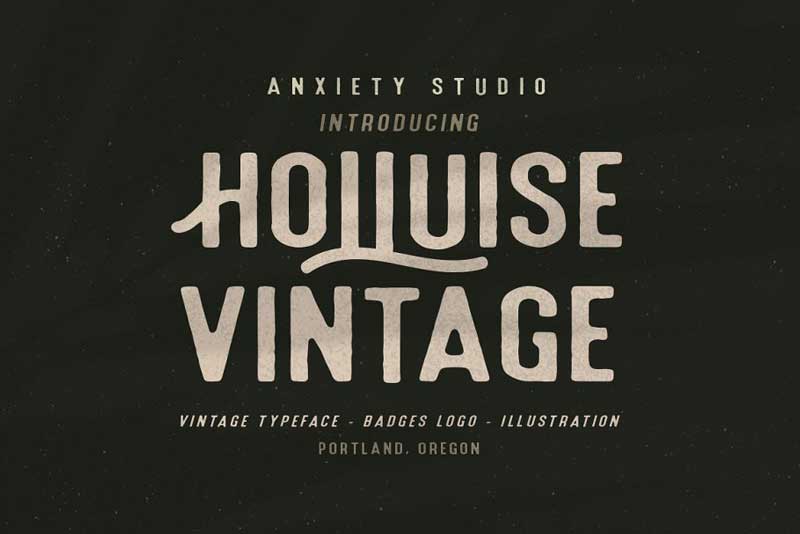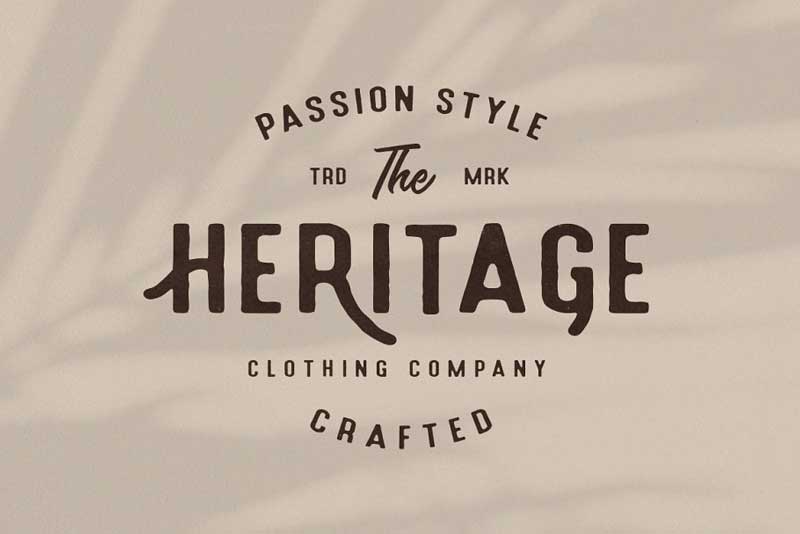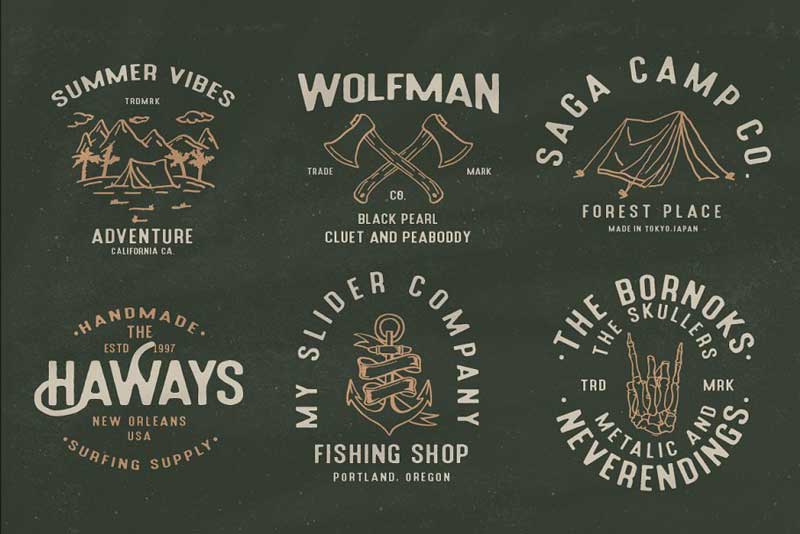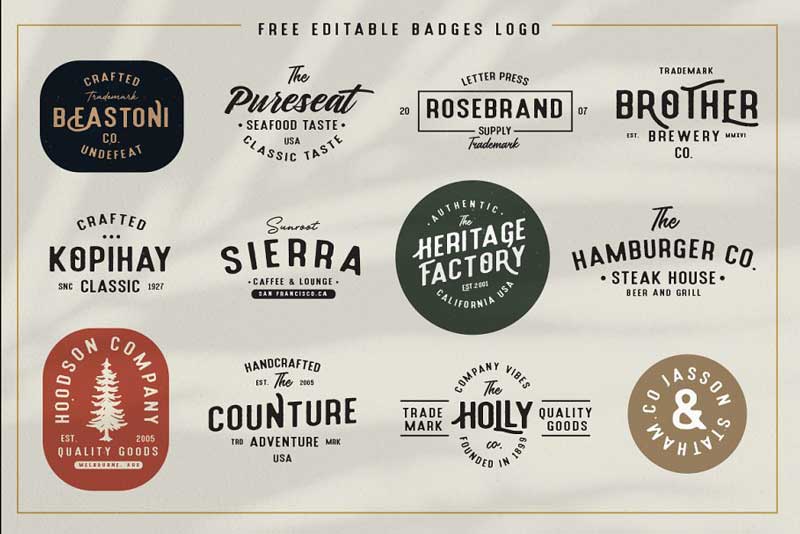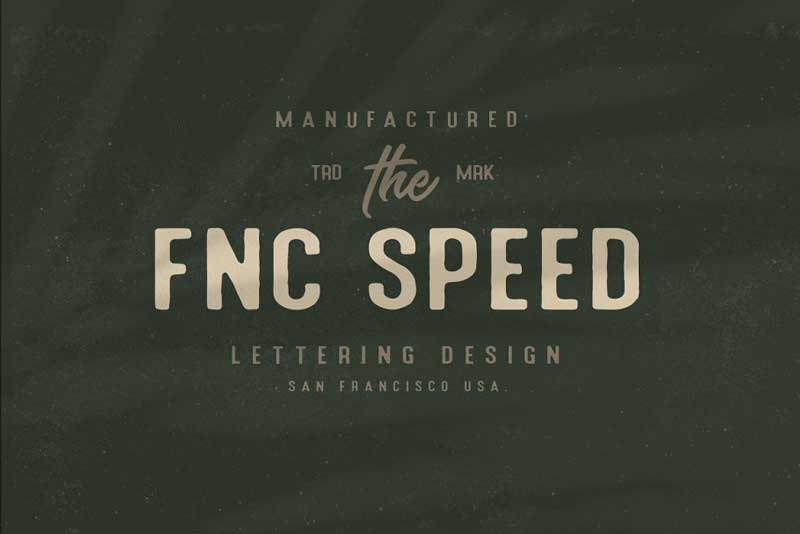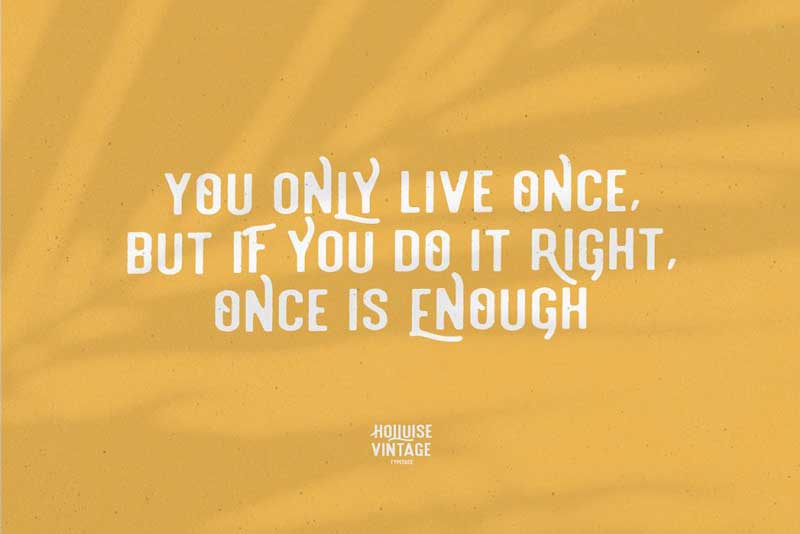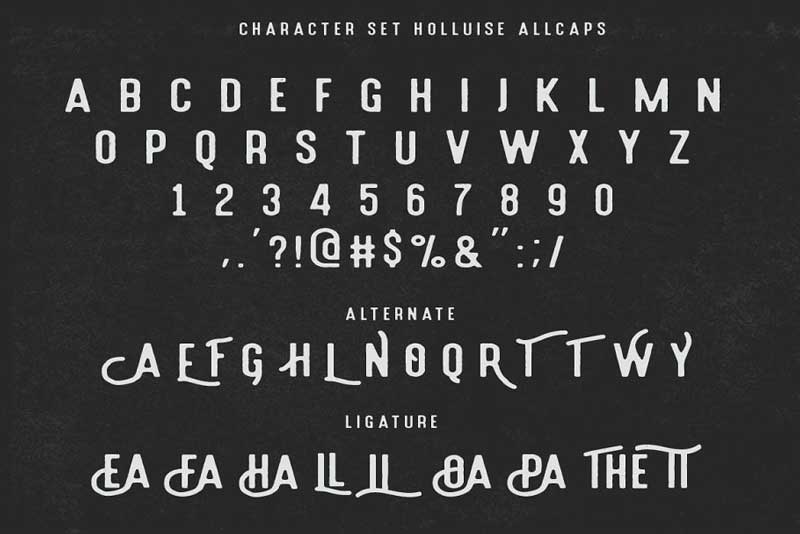
Holluise Vintage Font (Extra Badges Logo)
Introducing Holluise . is Handmade modern vintage textured sans serif typefaces. Holluise has smooth edges to simulate the look of a vintage printing, so it will bring a vintage handmade looked like. OpenType features with Stylistic Alternates and Contextual Alternate in some characters also we add free editable badges logo for you that allows you to mix and match pairs of letters to fit your design. This font good for vintage design, t-shirt, logo, labels, posters and etc..
Features
Character set A-Z with special uppercase letters
• Stylistic Alternates
• Discretionary Ligatures
• Numerals & Punctuation